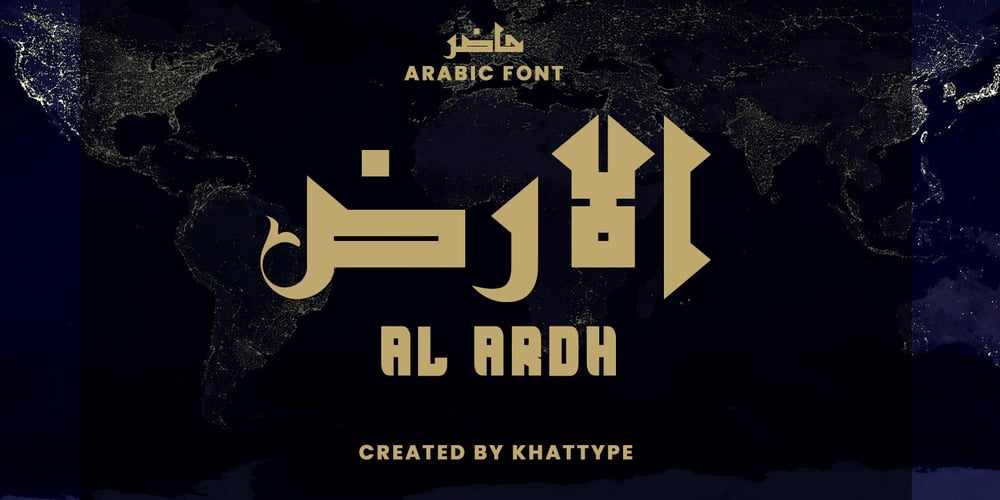
Al Ardh Font Family was designed by Mohamad Shadiq and published by Khat Type. Al Ardh contains 2 styles and family package options. Al Ardh, which is the Arabic word for ‘Earth’, is an Arabic display font with a contemporary letterform design inspired by the Kufic script. Rakan is suitable for modern applications such as advertising, branding and publication design. The typeface includes 4 weights (Regular, Regular Italic, Thin and Thin Italic) and supports Windows, Mac and mobile applications. If you need the thin and italic style, please contact me